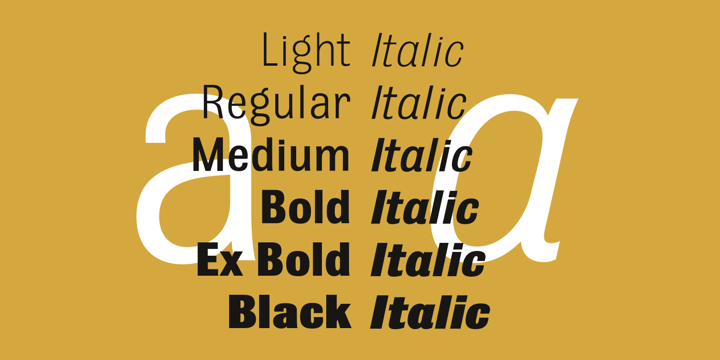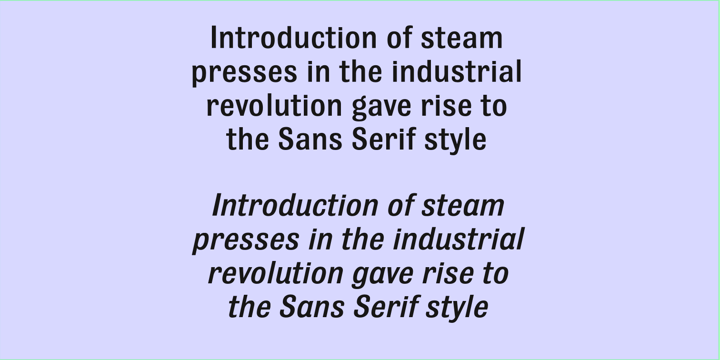
Bulldog Pro Variable Complete
Classic character. Professional control.
The Bulldog you know — now infinitely adjustable. Bulldog Pro Variable re-imagines Adrian Williams’ 1989 classic for today’s typographic landscape. Its classic character is rooted in the robust Gothic and Grotesque traditions of the late nineteenth century and draws particular inspiration from the 1870 Figgins Sans — a pivotal moment in the evolution of Sans Serif design. This new edition is not a simple revival. It has been rebuilt with modern spacing, refined proportions, and a new light weight. Bulldog Pro Variable introduces expanded language coverage with Latin Extended‑A, tabular and proportional figures, old style numerals, lining figures for use with capitals, unlimited fractions, custom ligatures, and stylistic sets. Classic character & professional control. Designed for clarity, impact, and versatility, bringing more than a century of typographic heritage into a format ready for contemporary branding, editorial design and digital environments. This bundle comprises
• Bulldog Pro Variable Roman font with full weight axis range 300 (Light) - 900 (Black)
• Bulldog Pro Italic Italic Variable font with full weight axis range 300 (Light) - 900 (Black)